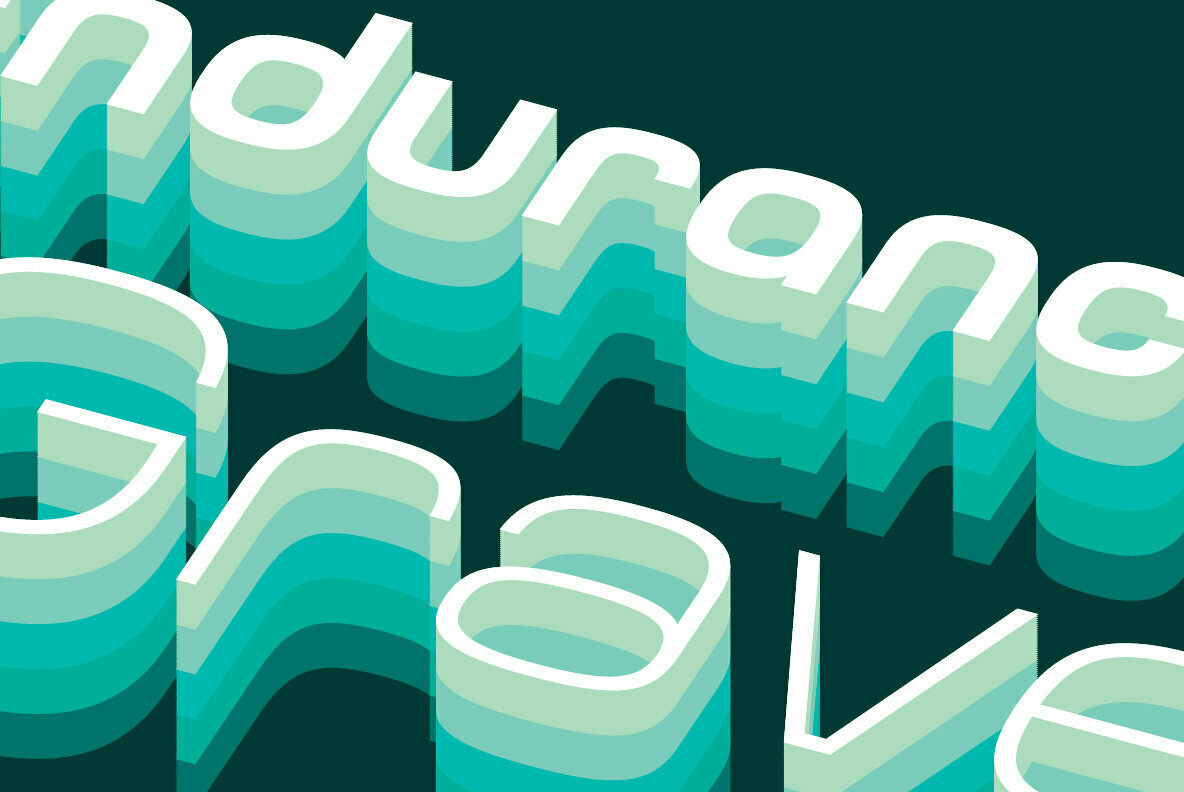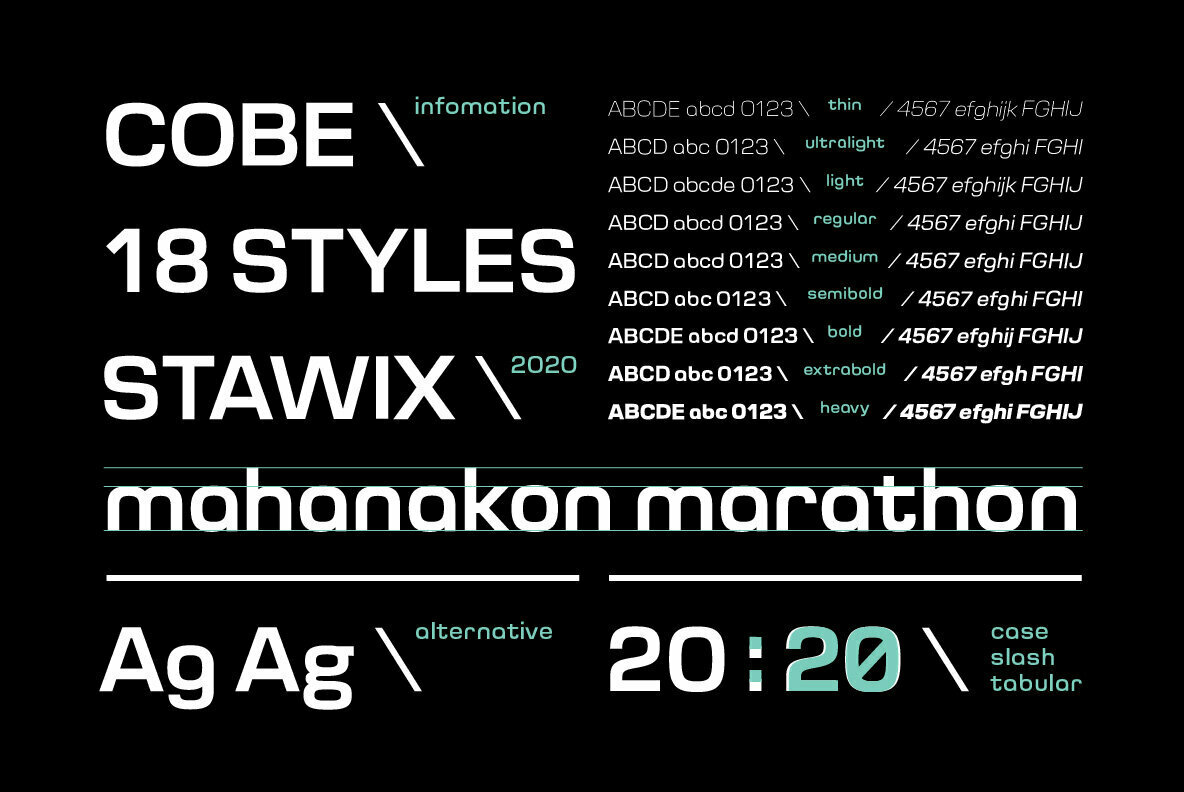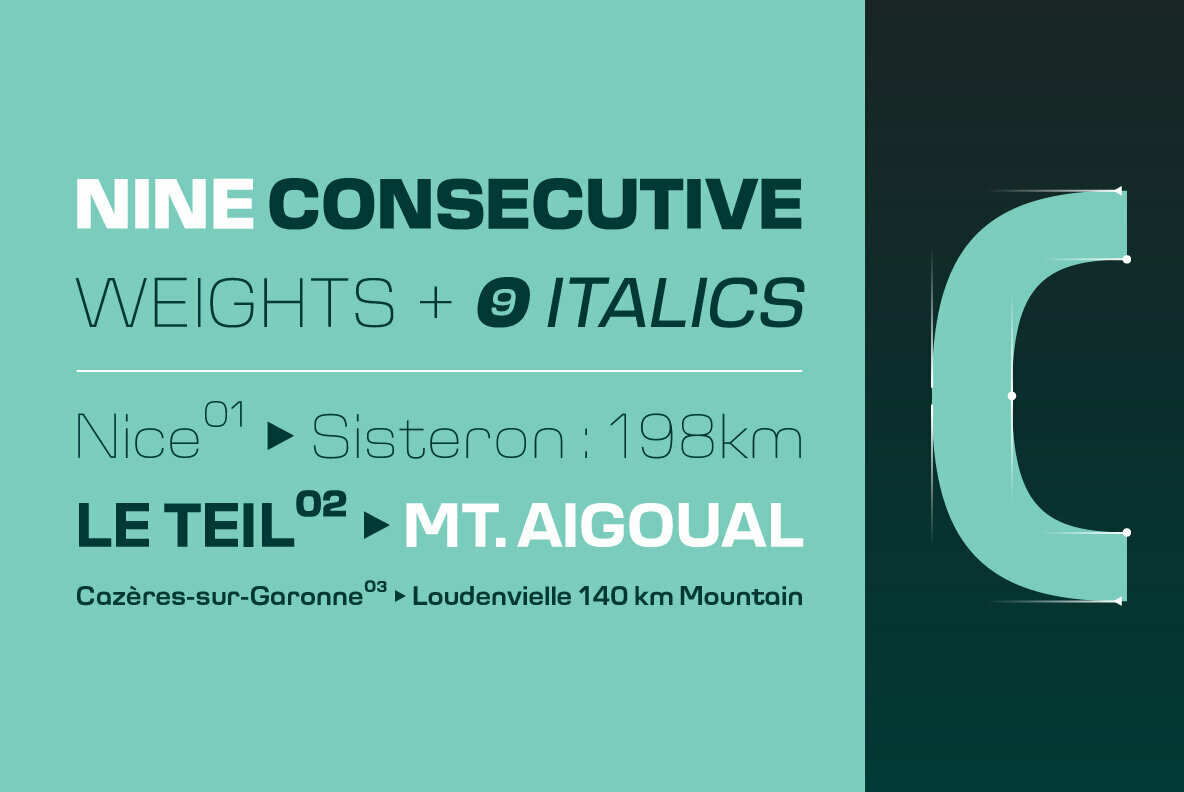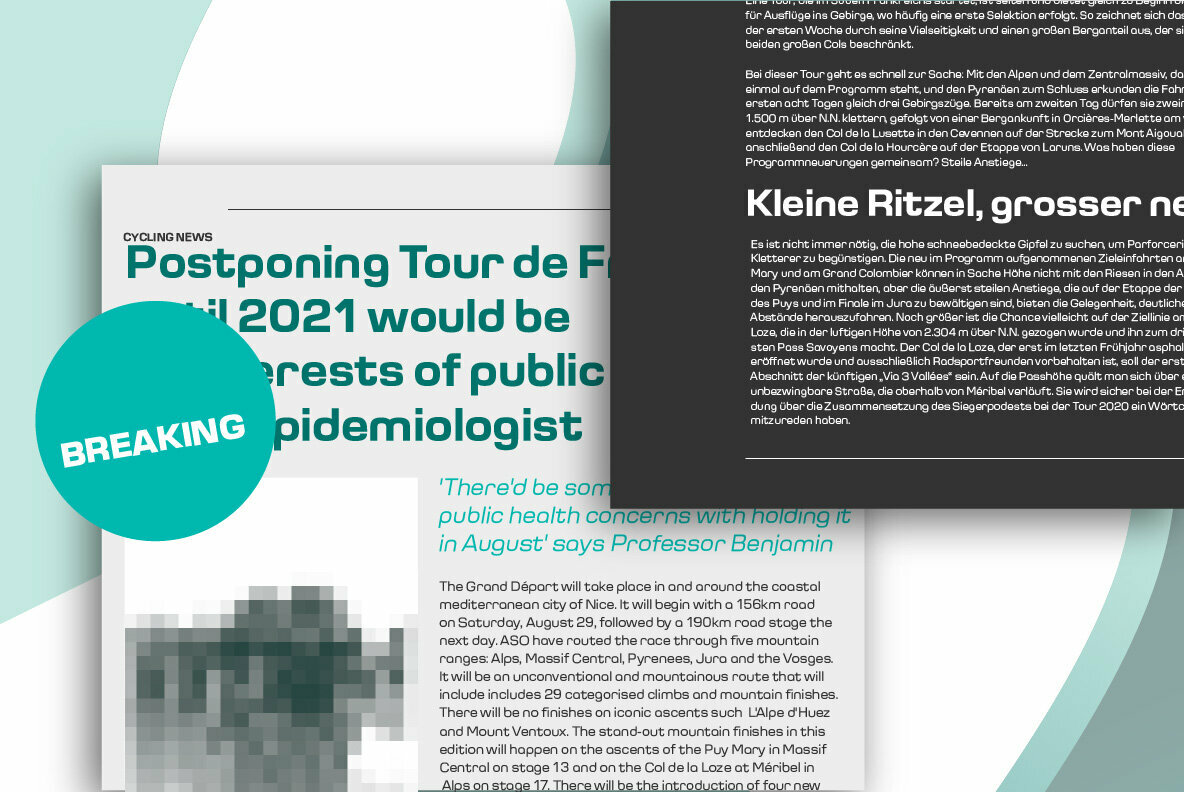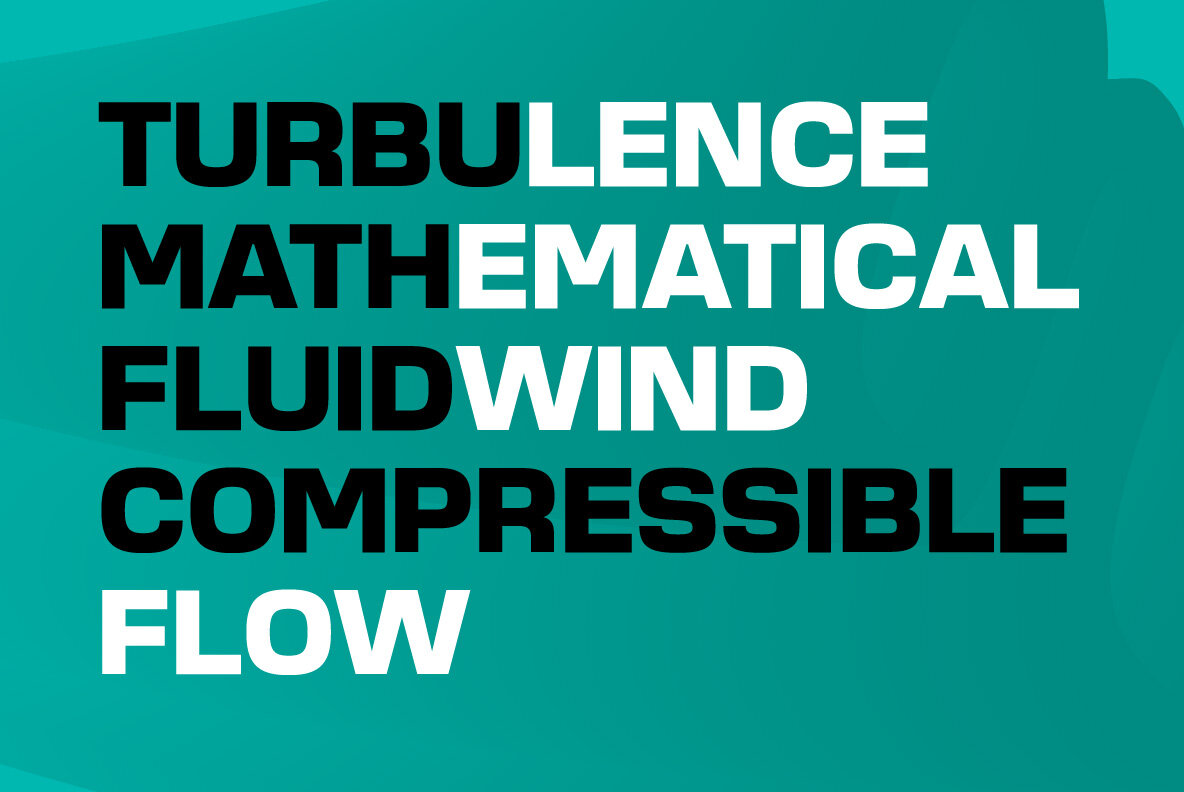
Cobe Font
The result of reducing elements of letterforms to only its necessity in lowercase is mostly influenced by the ideal of Aerodynamics. The true intention behind the design of Cobe is to construct a fluid typeface while maintaining a strong structure of uppercase that possessed distinct forms, shapes, and corners, resulting in an eye-pleasing texture when forming a sentence.
Cobe comes in 9 consecutive weights with italics and standard features.